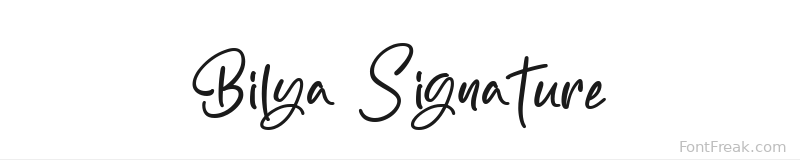
Bilya Signature
Bilya Signature, crafted by MJType in 2023, is a stunning script font that exudes elegance and sophistication. This font falls under the handwritten category, characterized by its flowing and organic strokes that mimic natural handwriting. The Bilya Signature font features a medium stroke weight with graceful curves and subtle contrasts, creating a visually appealing balance that enhances readability while maintaining its artistic charm. The spacing between characters is thoughtfully designed to ensure legibility, even in longer text passages, making it versatile for various applications.
Ideal for a wide range of uses, Bilya Signature shines particularly in wedding invitations, where its refined aesthetic can set the tone for a romantic event. It also works beautifully on business cards, adding a personal touch that can make a lasting impression. Restaurant menus can benefit from this font's elegance, attracting diners with its stylish flair. Additionally, it is perfect for social media graphics, where content creators can utilize its unique style to enhance engagement and capture attention.
The target audience for Bilya Signature includes graphic designers seeking to elevate their projects, small business owners looking for distinctive branding options, and content creators eager to add a professional touch to their visual materials.
What sets Bilya Signature apart is its unique blend of charm and sophistication, making it a standout choice for anyone looking to infuse their designs with a personal and artistic flair. With the Bilya Signature font free download available, it's never been easier to elevate your creative projects and make a memorable impact with your typography. Experience the allure of Bilya Signature and see how it can transform your designs into something truly special.